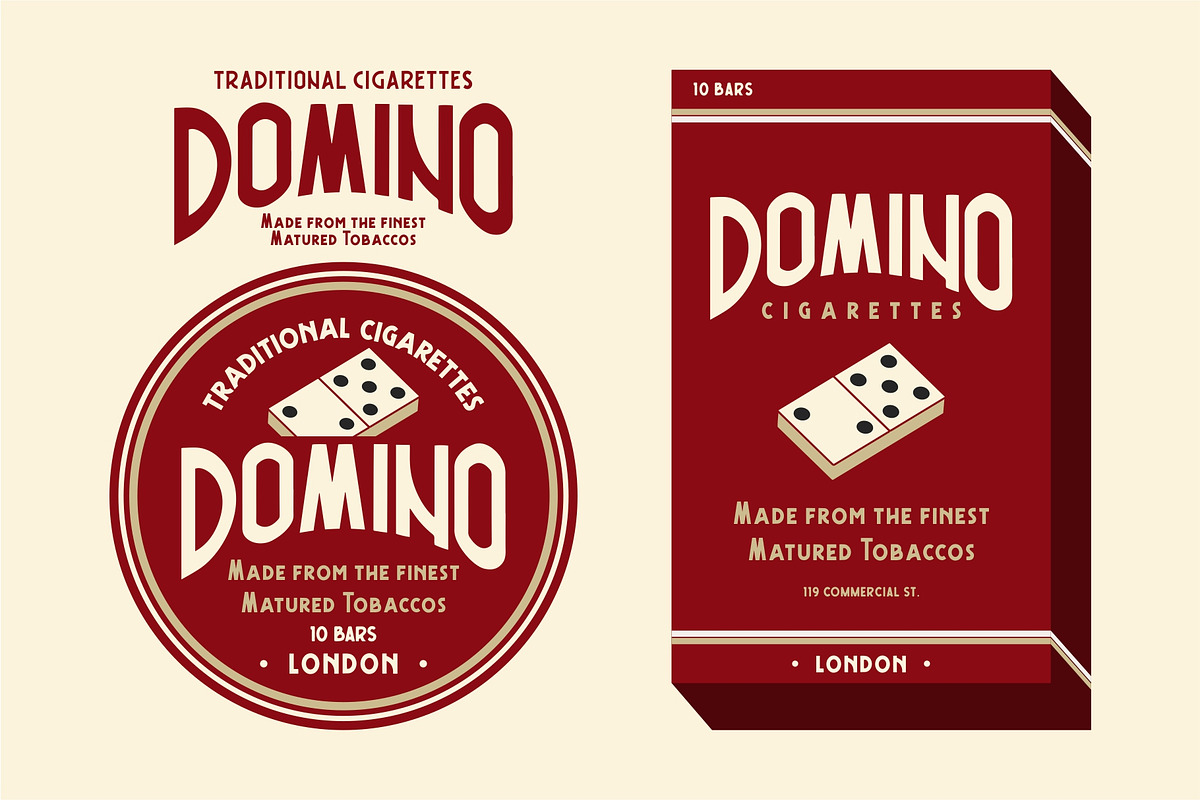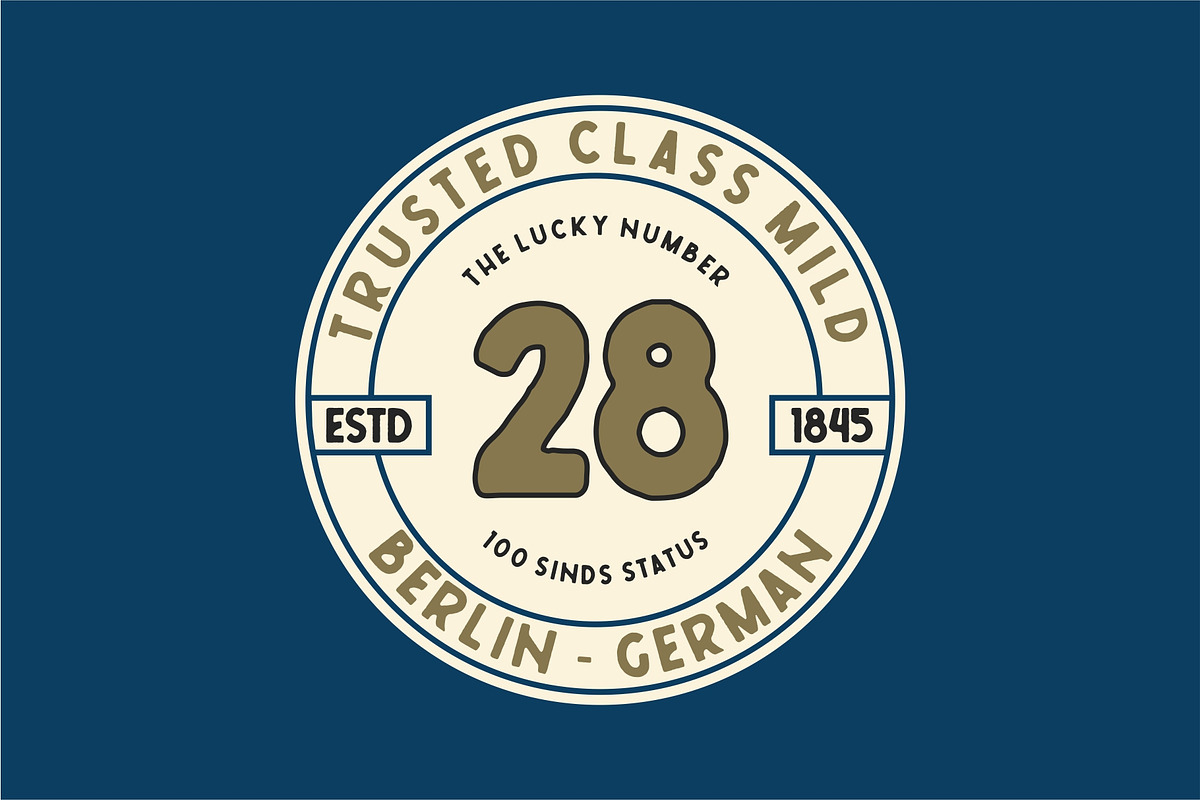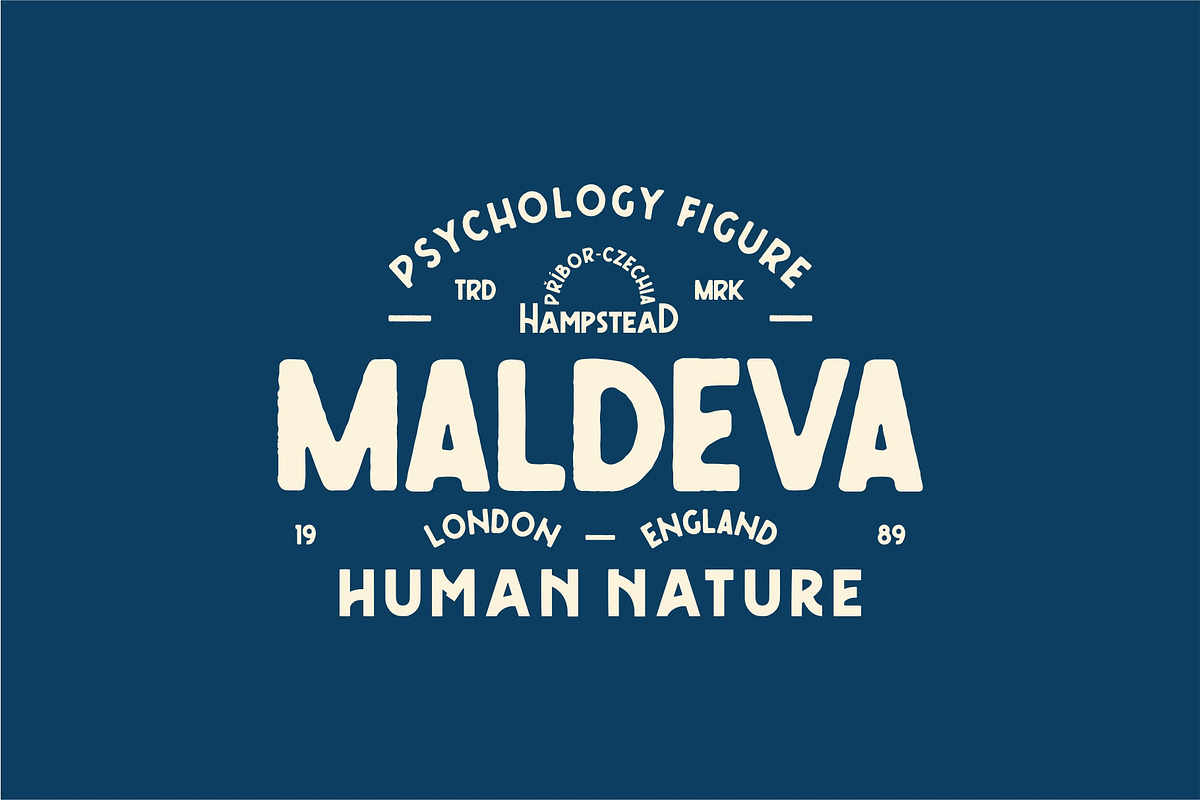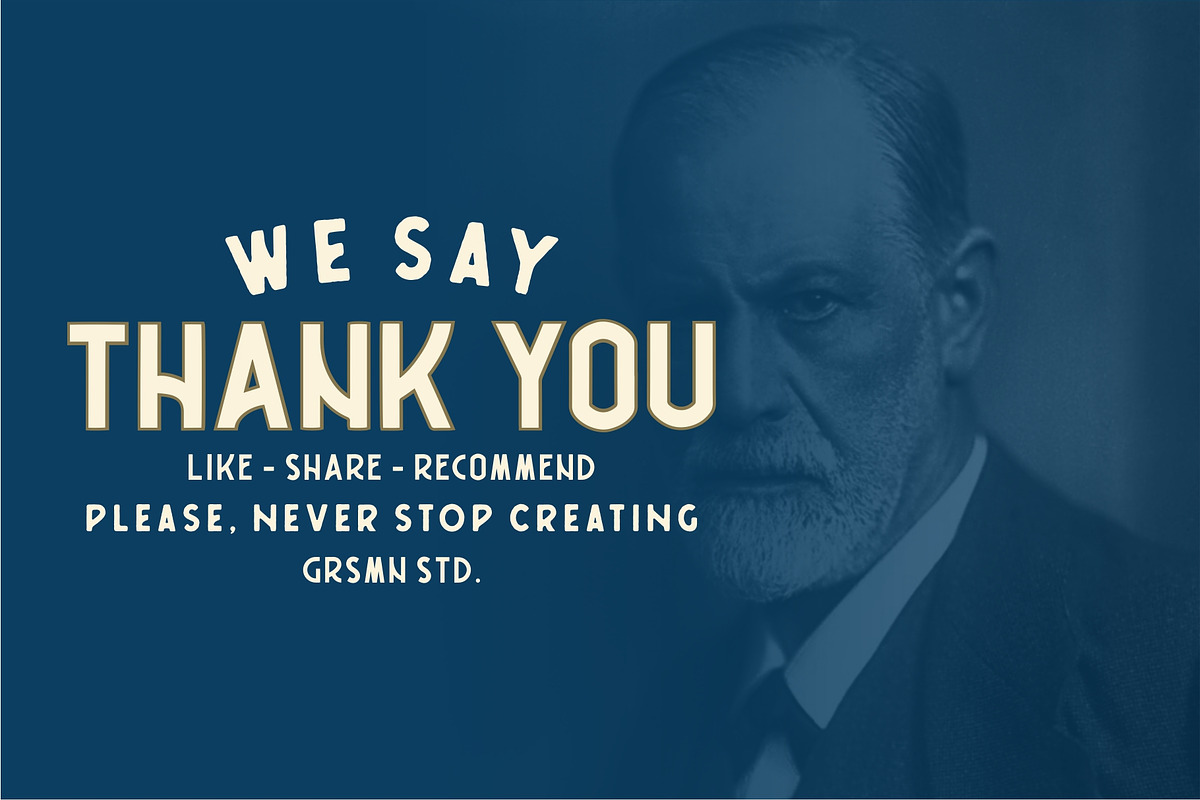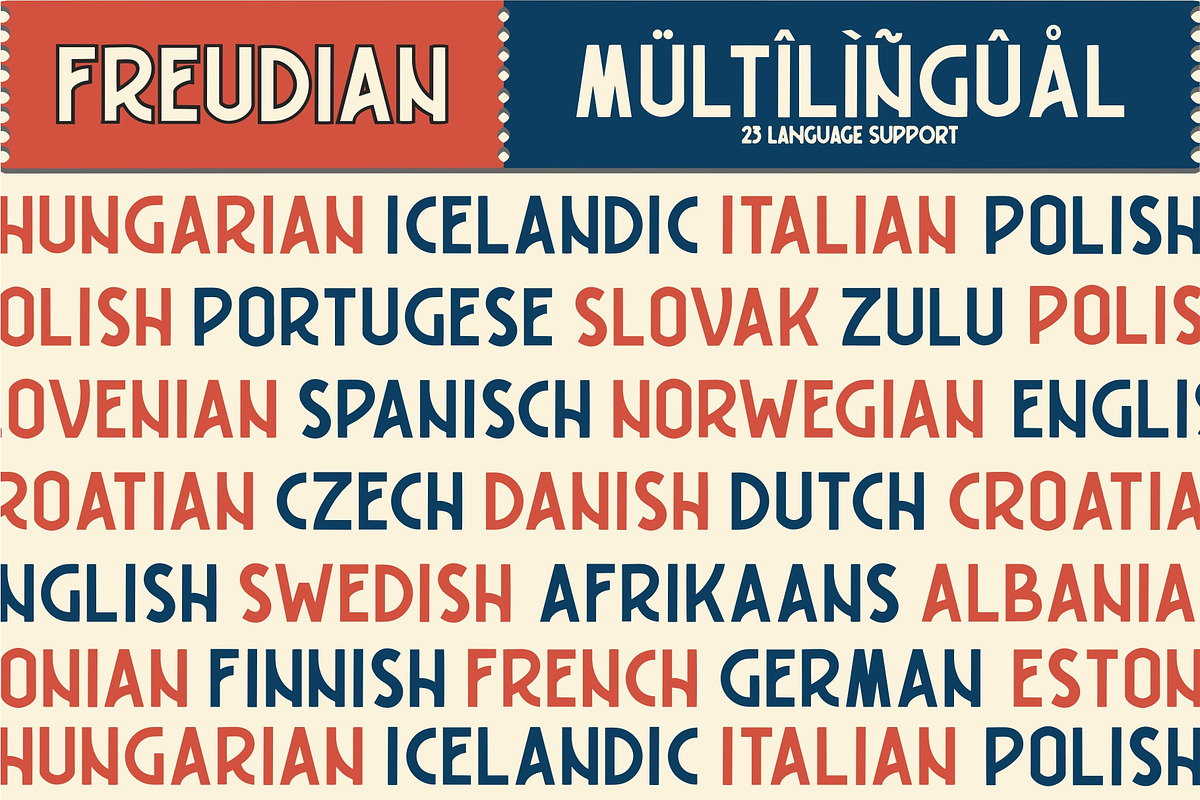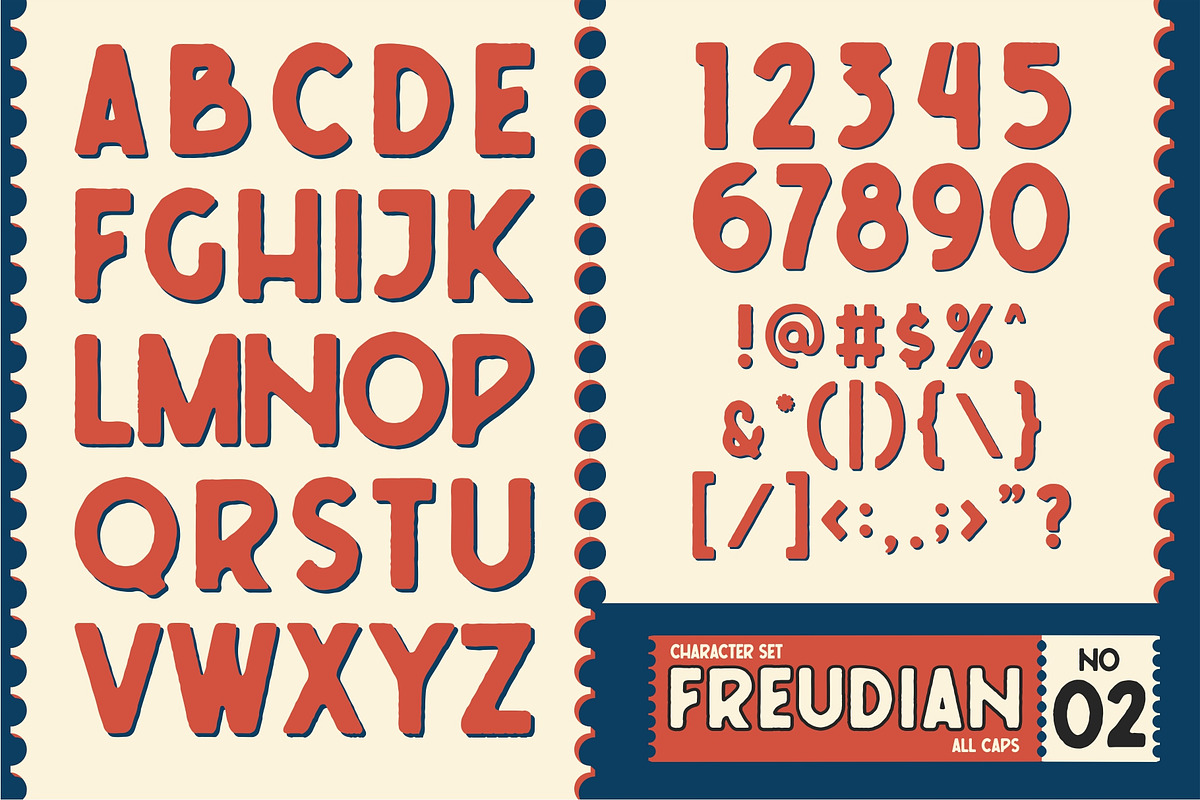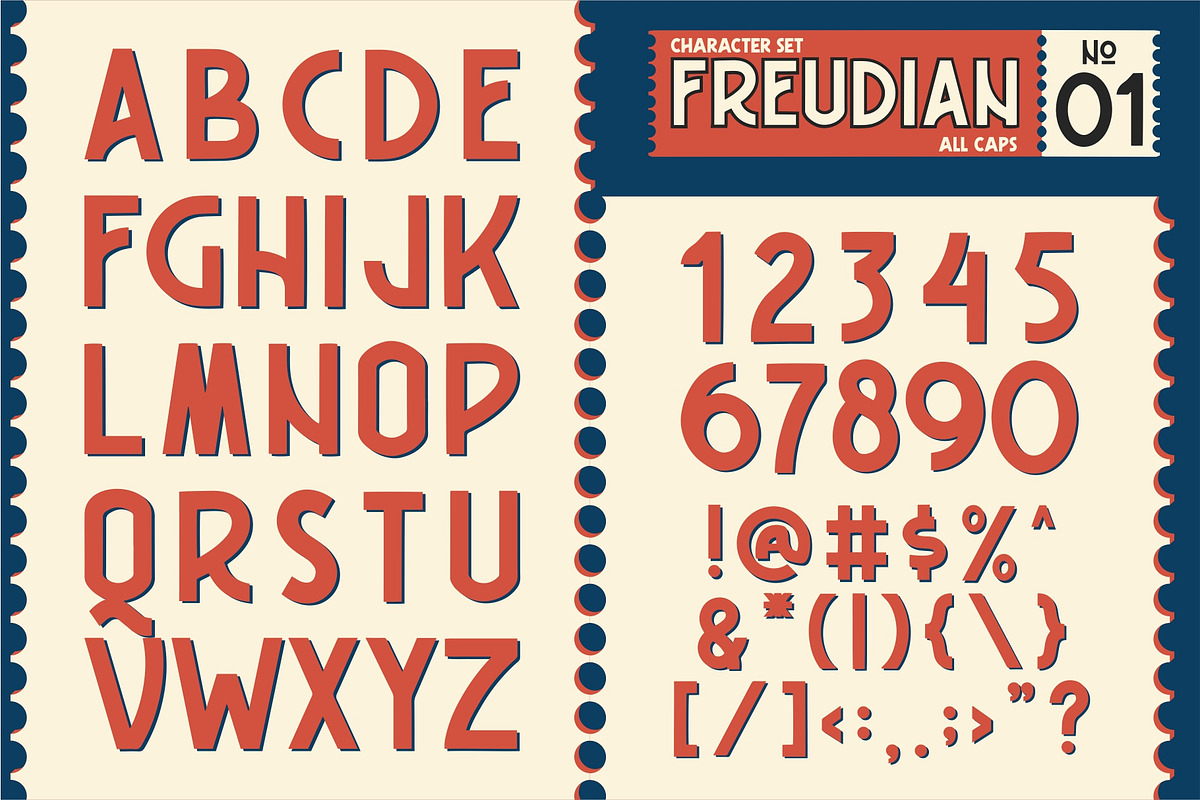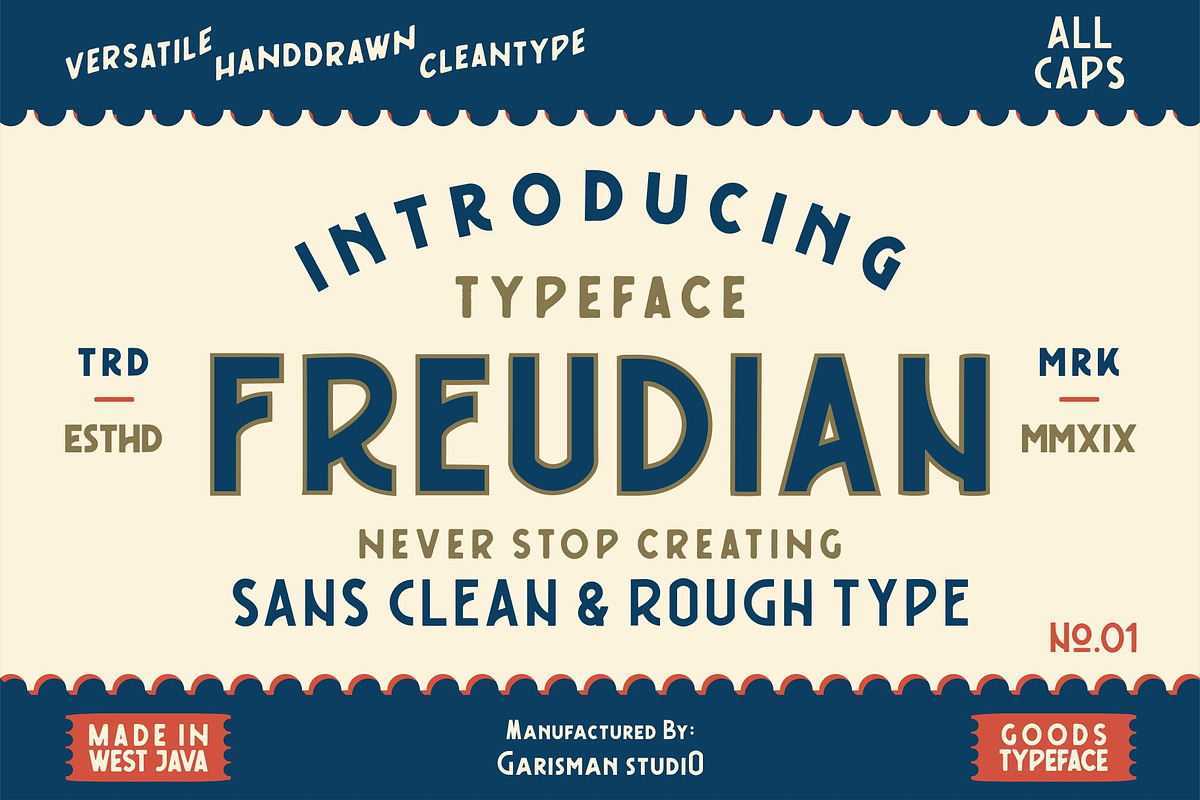
Freudian Typeface
Welcome to FREUDIAN TYPEFACE
This font gives a feel of a vintage, classic, old, handmade looked like. Already PUA Encoded and I think this font is perfect for people looking for vintage aesthetic or hand drawn logo. Suitable for any graphic designs such as branding materials, t-shirt, print, business cards, logo, poster, t-shirt, photography, quotes .etc.
- Support for 23 Language: Afrikaans, Albanian, Catalan, Croatian, Czech, Danish, Dutch, English, Estonian, Finnish, French, Hungarian, Icelandic, Italian, Norwegian, Polish, Portuguese, Slovak, Slovenian, Spanish, Swedish and Zulu
- Adding OpenType ligature